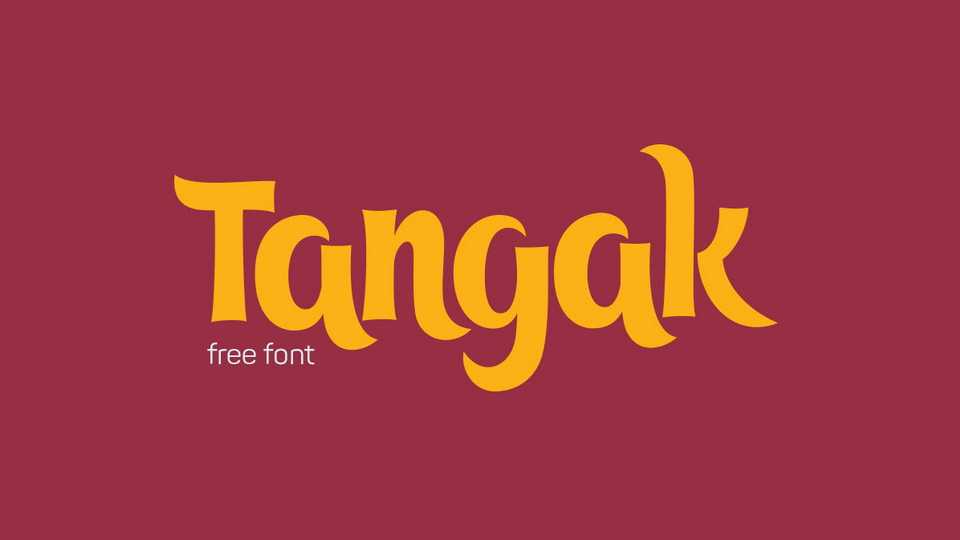
Download Tangak font, a beautiful display font with playful and friendly look. Tangak font perfectly fits for logos, branding, packaging, posters, headlines, banners and more.
Designer: Dastan Miraj